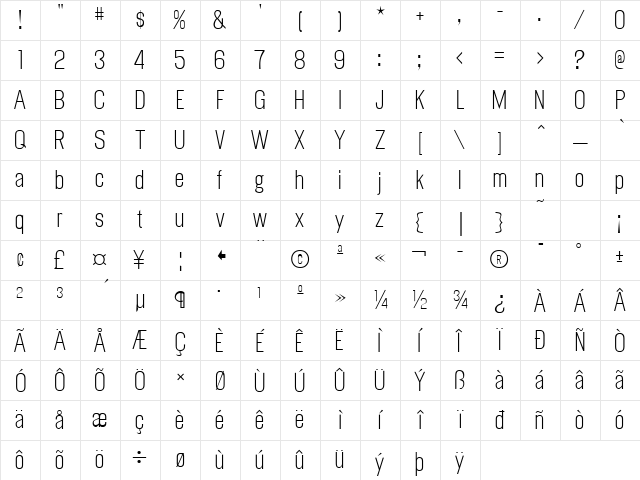
Myhota Regular Free Font
Myhota Regular
Design Context for Myhota
Myhota is a composed and adaptable typeface that performs quietly and consistently across a wide range of design contexts.